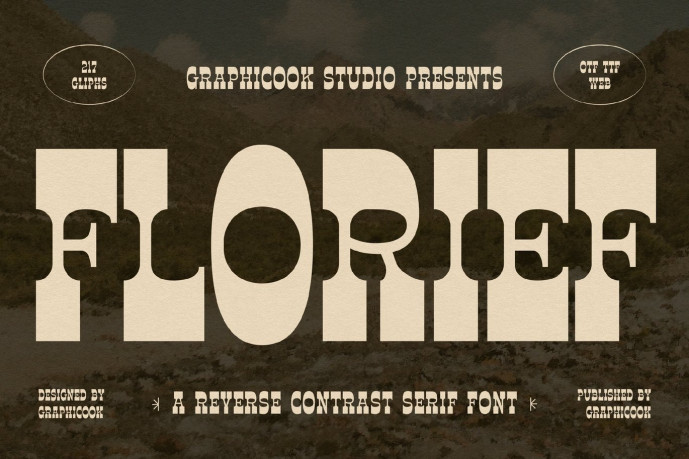
Florief Font
Designer: graphicook
Florief Font is a reverse-contrast display typeface featuring bold, unconventional, expressive, and undeniably striking letterforms. Its avant-garde character, both vintage and modern, makes it perfect for designs that aim to stand out with a bold and iconic typographic presence.